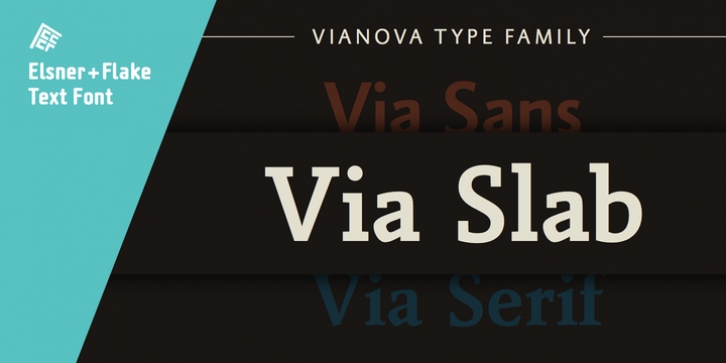
Publisher: Elsner+Flake
Vianova Slab Pro was designed by Jürgen Adolph and published by Elsner+Flake. Vianova Slab Pro contains 12 styles and family package options.
The font superfamily Vianova contains each 12 weights of Sans and Slab and 8 weights of the Serif style. The design from Jürgen Adolph dates back into the 1990s, when he studied Communication Design with Werner Schneider as a professor at the Fachhochschule Stuttgart. Adolph started his carrier 1995 at Michael Conrad & Leo Burnett. He was responsible for trade marks as Adidas, BMW, Germanwings and Merz. He has been honored as a member of the Art Directors Club (ADC) with more than 100 awards.
On February 26, 2014, Jürgen Adolph wrote the following:
"I was already interested in typography, even when I could not yet read. Letterforms, for instance, above storefronts downtown, had an irresistible appeal for me.
Therefore, it is probably not a coincidence that, after finishing high school, I began an apprenticeship with a provider of signage and neon-advertising in Saarbrücken, and – in the late 1980s – I placed highest in my field in my state.
When I continued my studies in communications design in Wiesbaden, I was introduced to the highest standards in calligraphy and type design. "Typography begins with writing" my revered teacher, Professor Werner Schneider, taught me. Indefatigably, he supported me during the development of my typeface "Vianova" – which began as part of a studies program – and accompanied me on my journey even when its more austere letterforms did not necessarily conform to his own aesthetic ideals.
The completely analogue development of the types – designed entirely with ink and opaque white on cardboard – covered several academic semesters. In order to find its appropriate form, writing with a flat nib was used.
Once, when I showed some intermediate designs to Günter Gerhard Lange, who occasionally honored our school with a visit, he commented in his own inimitable manner: "Not bad what you are doing there. But if you want to make a living with this, you might as well order your coffin now."
At that time, I was concentrating mainly on the serif version. But things reached a different level of complexity when, during a meeting with Günther Flake which had been arranged by Professor Schneider, he suggested that I enlarge the offering with a sans and slab version of the typeface. So – a few more months went by, but at the same time, Elsner+Flake already began with the digitilization process.
In order to avoid the fate predicted by Günter Gerhard Lange, I went into "servitude" in the advertising industry (Michael Conrad & Leo Burnett) and design field (Rempen& Partner, SchömanCorporate, Claus Koch) and worked for several years as the Creative Director at KW43 in Düsseldorf concerned with corporate design development and expansion (among others for A. Lange & Söhne, Deichmann, Germanwings, Langenscheidt, Montblanc."